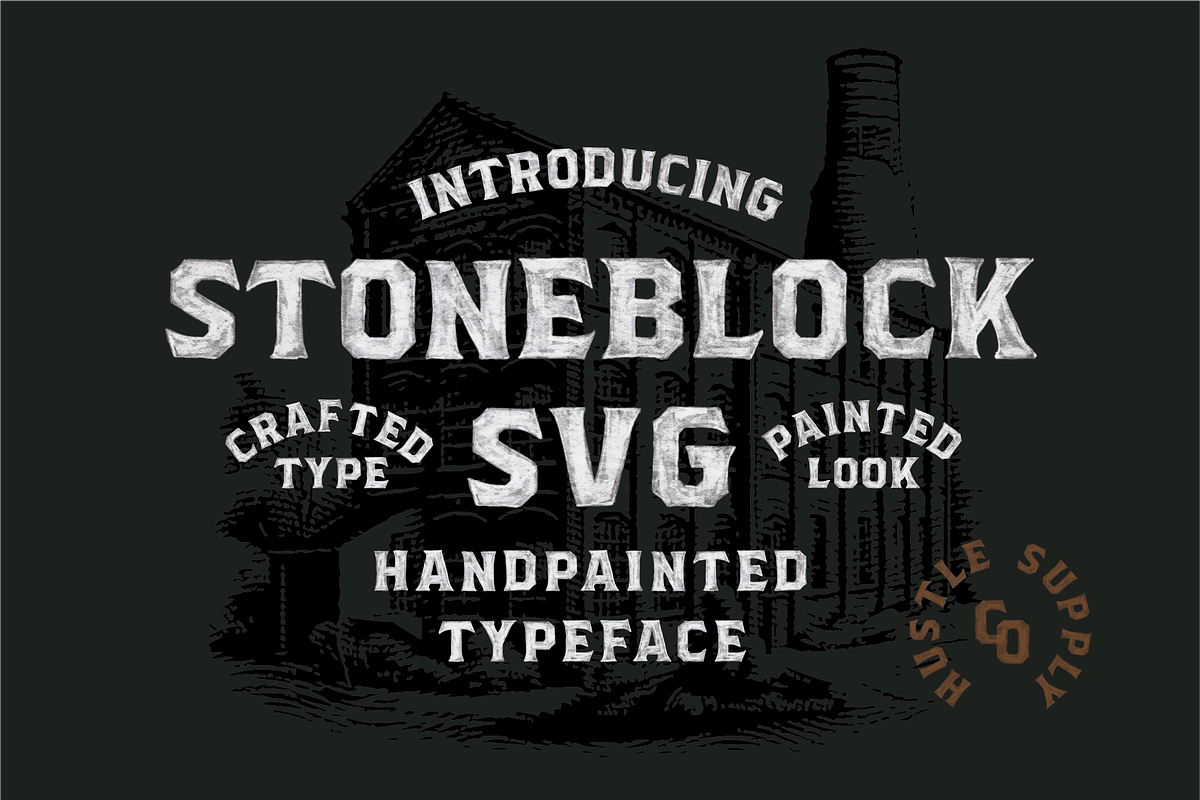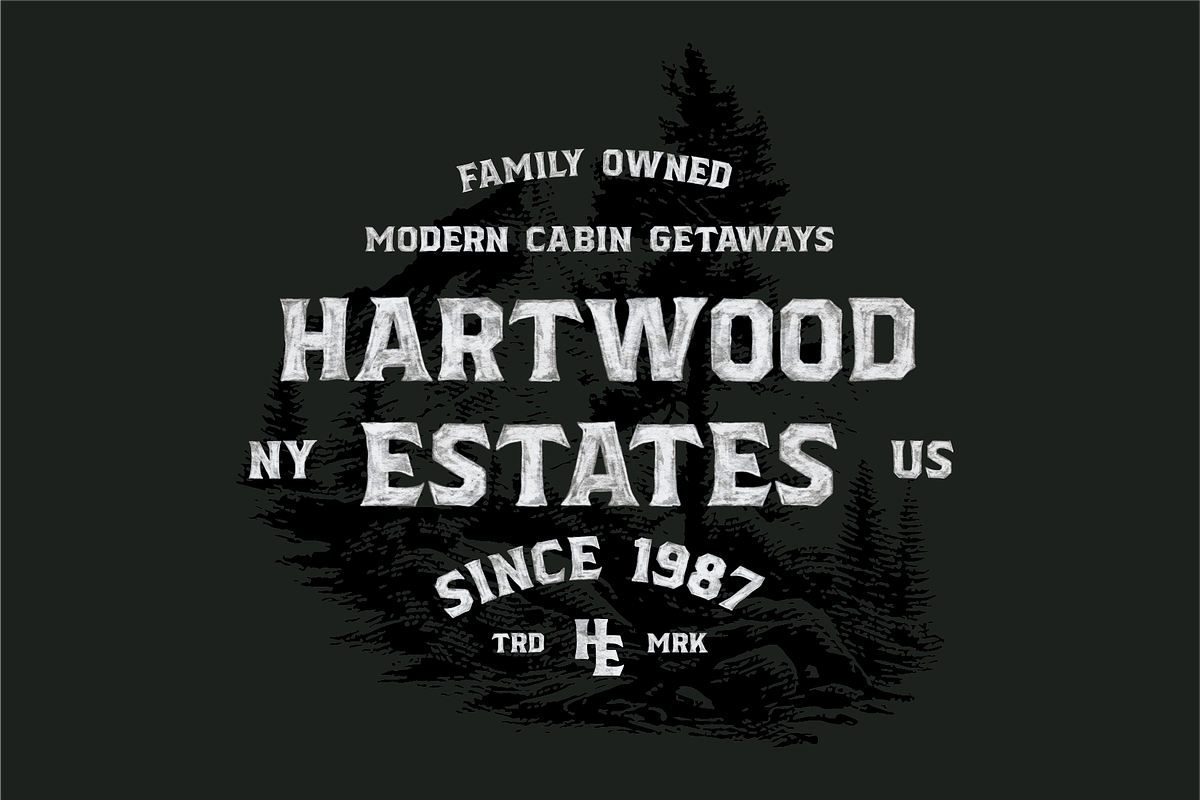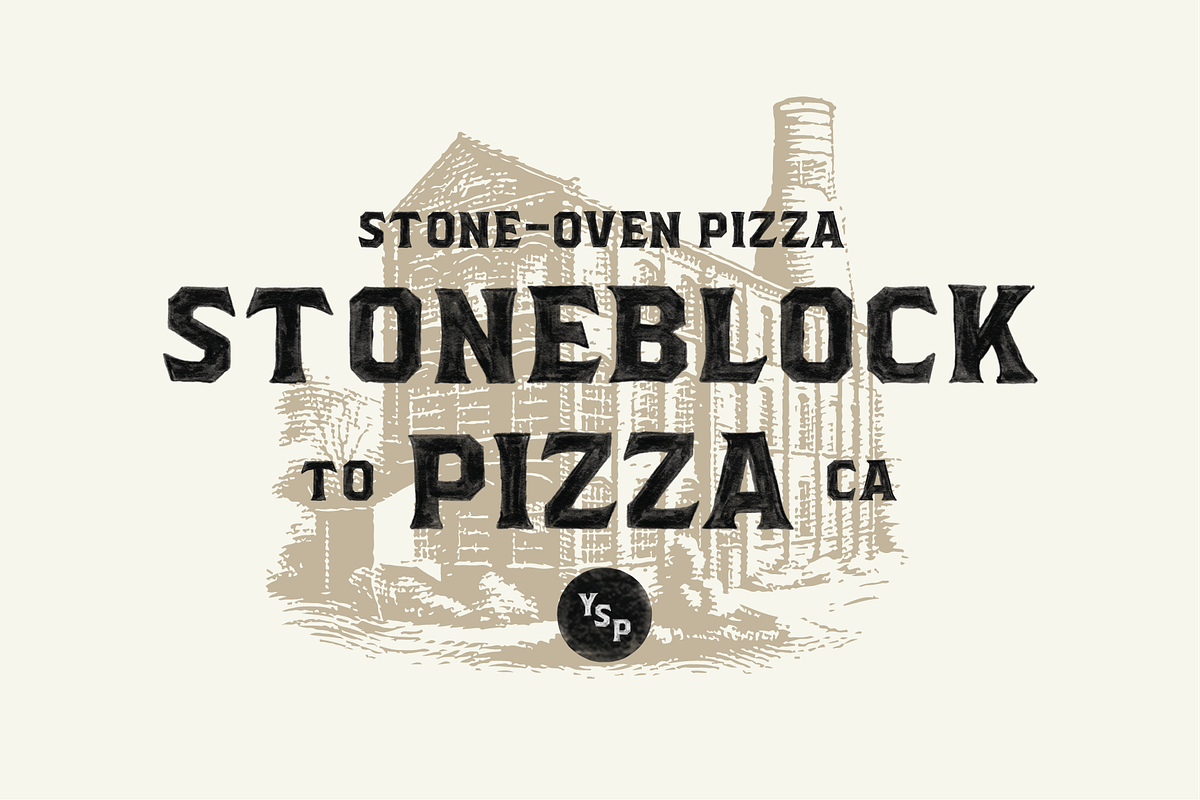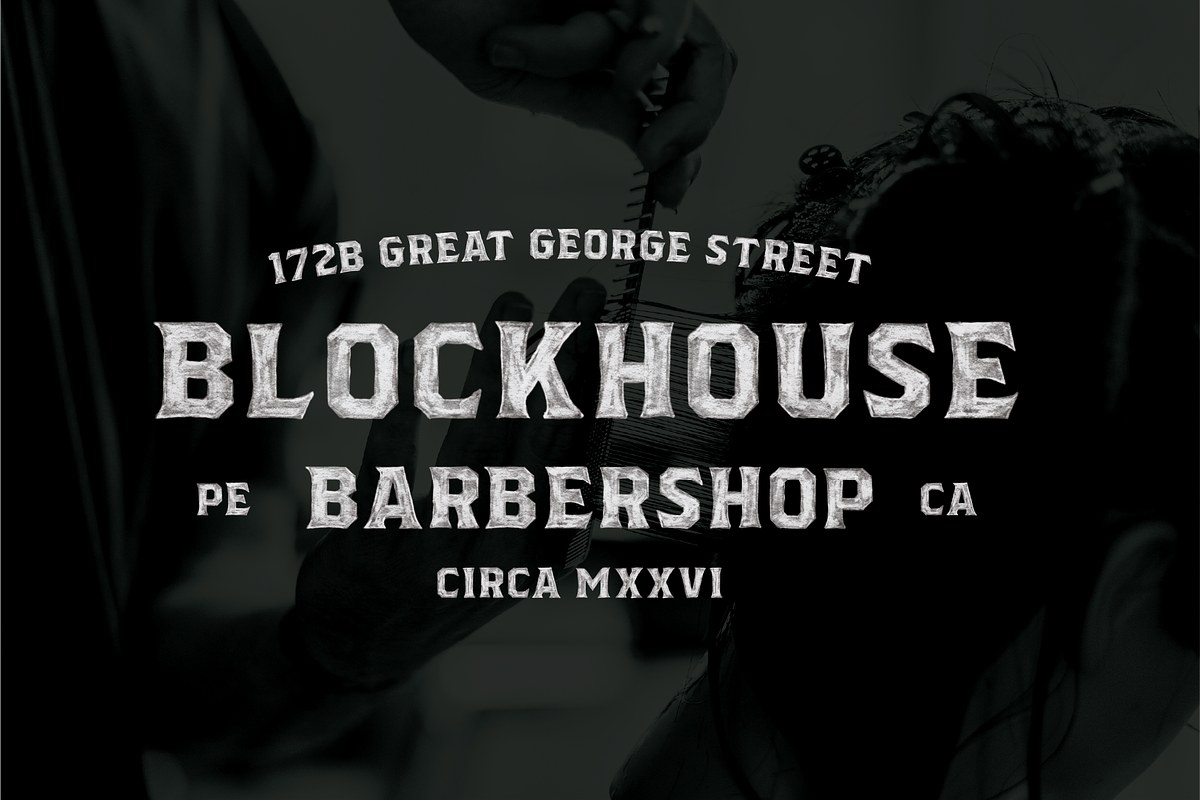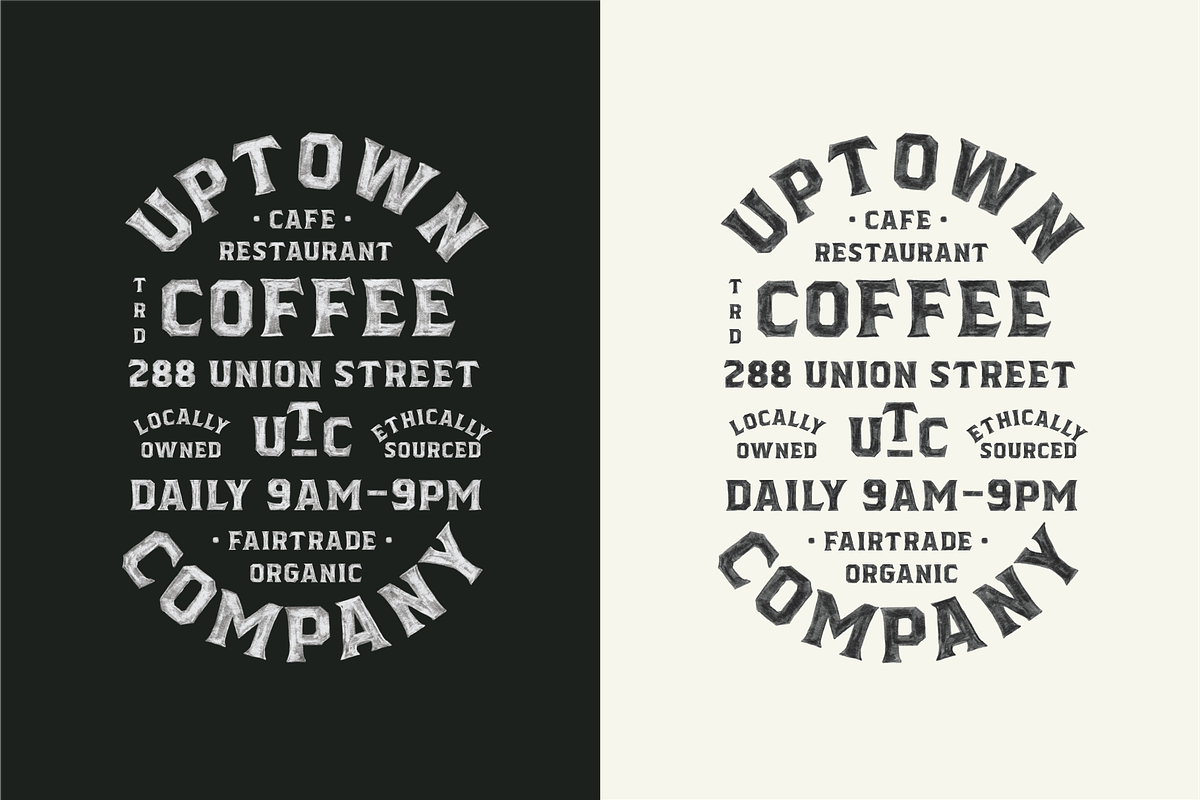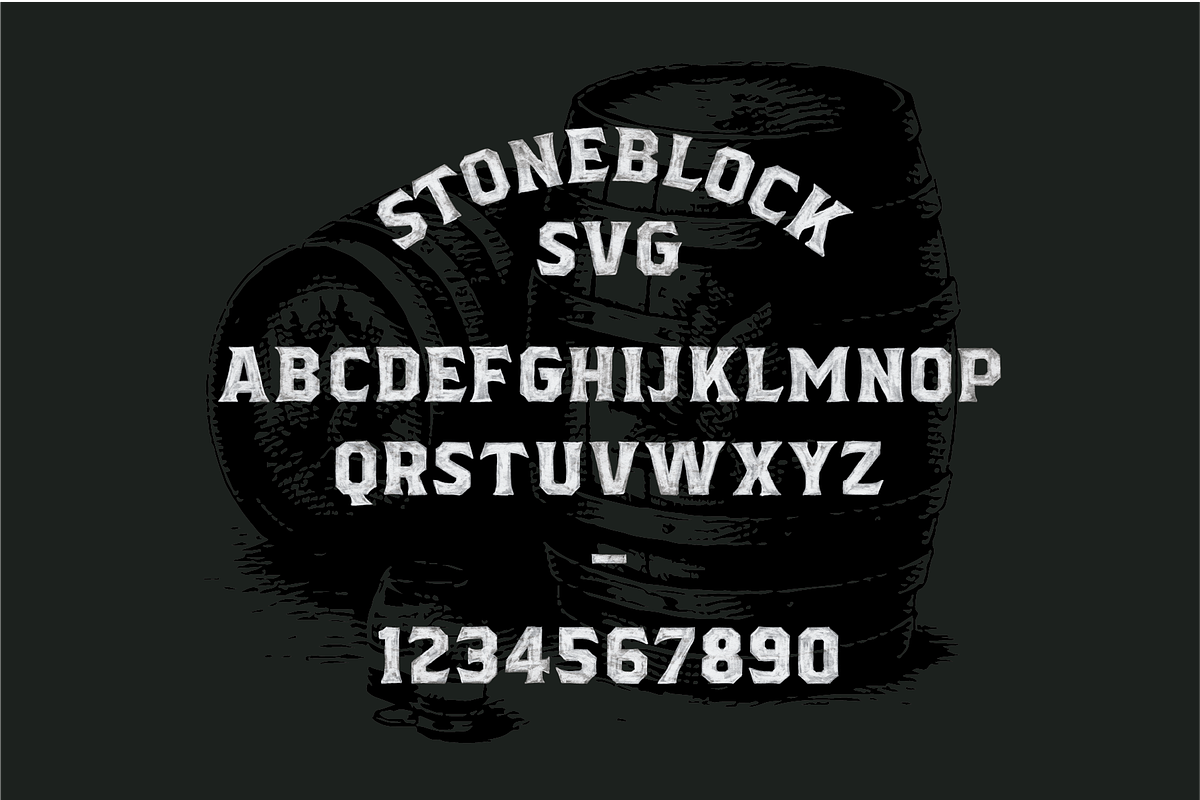
Stoneblock - Hand Painted SVG
Stoneblock An Opentype SVG Typeface
Stoneblock SVG is a hand painted typeface inspired by early 20th century sign lettering.